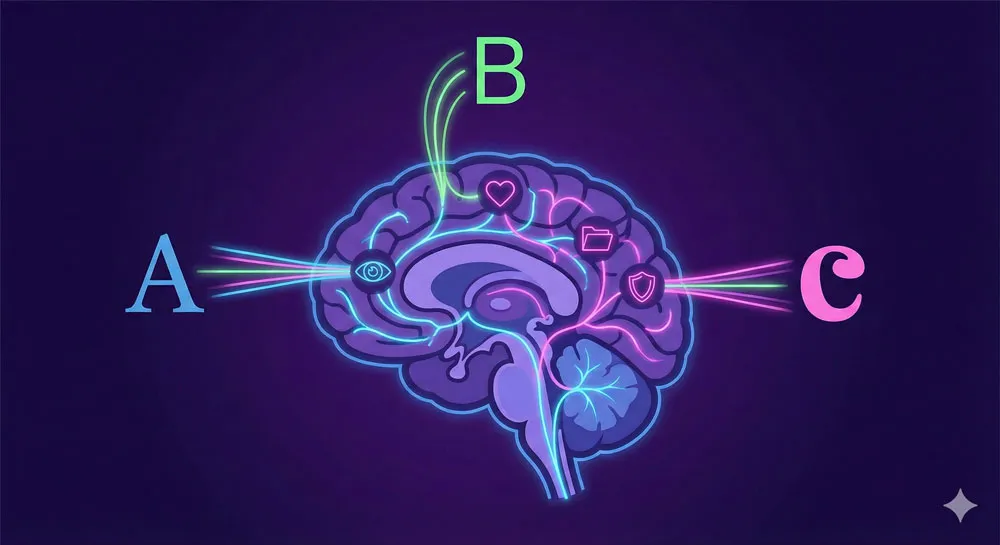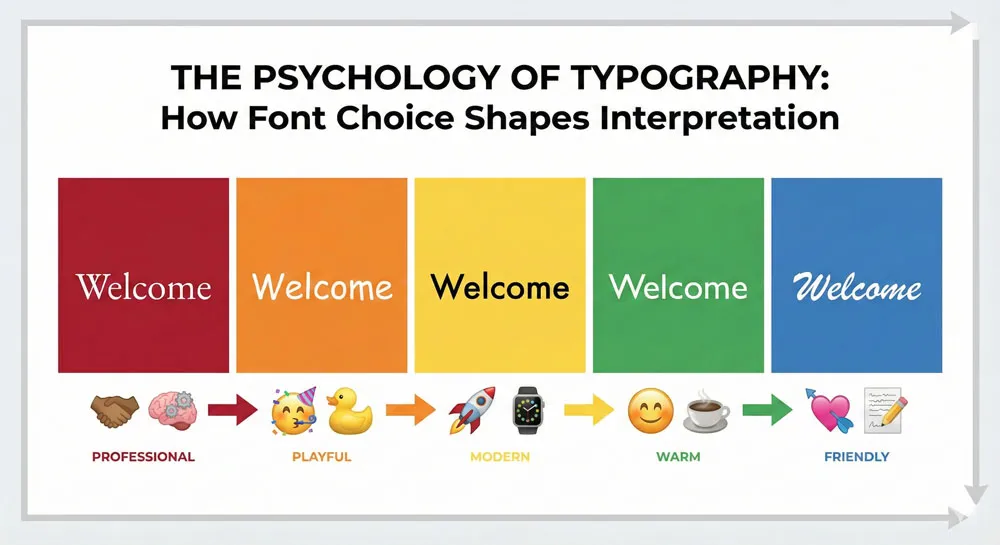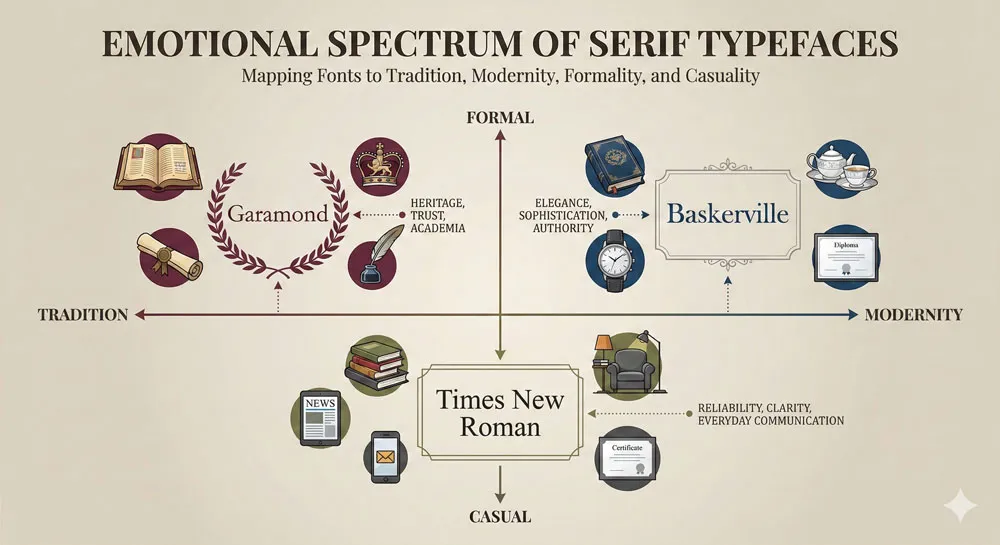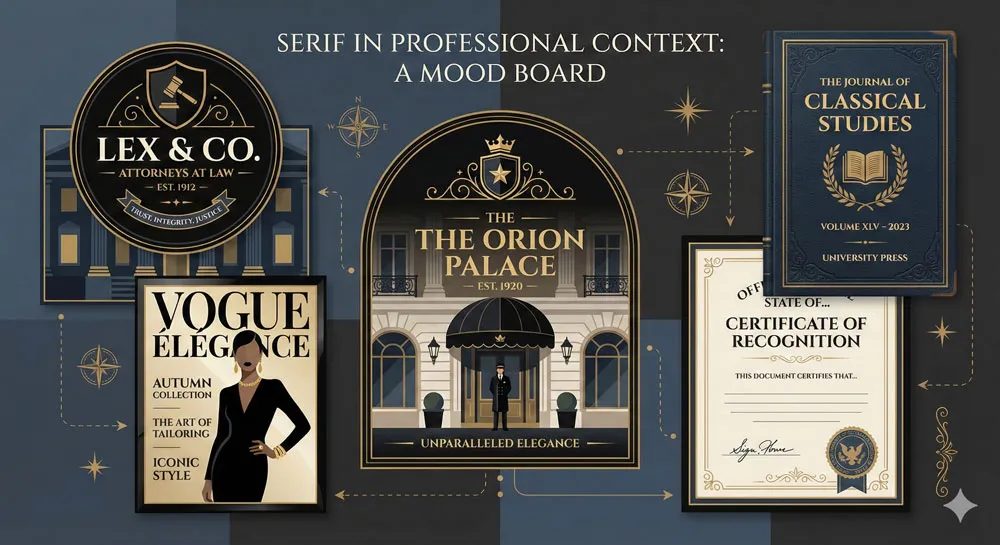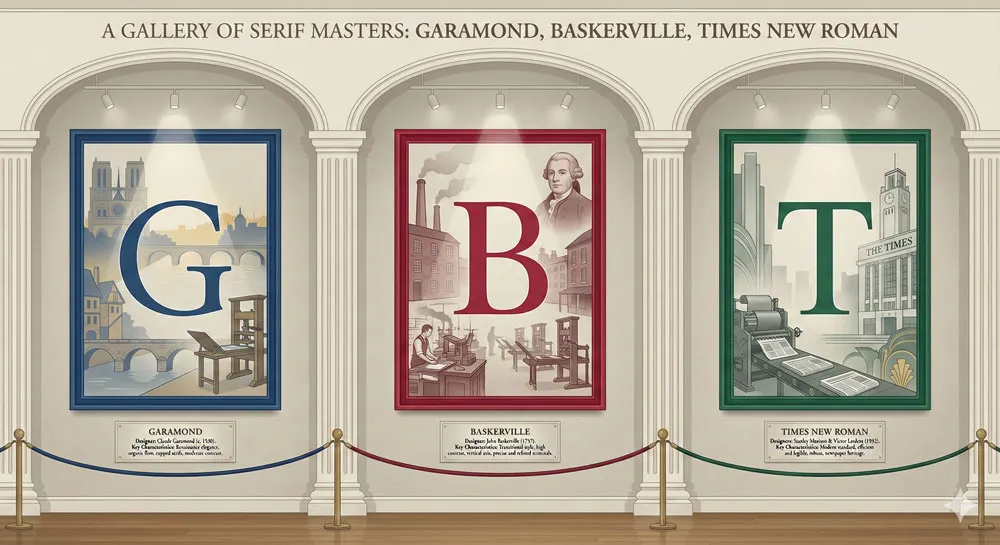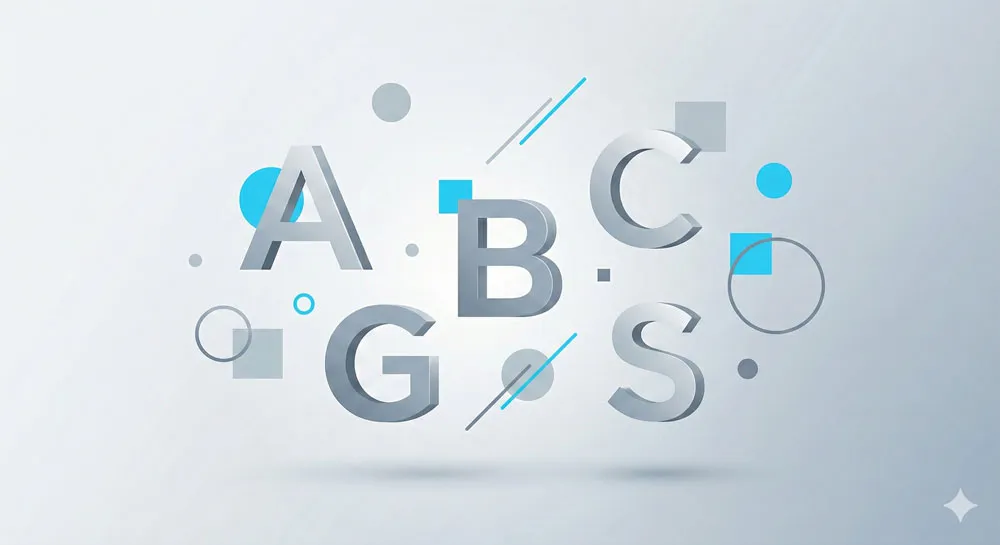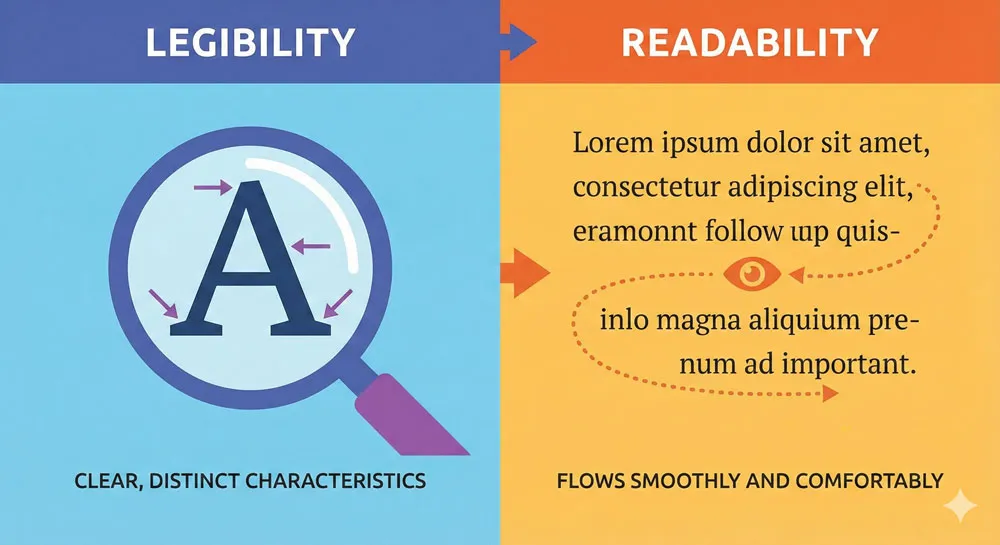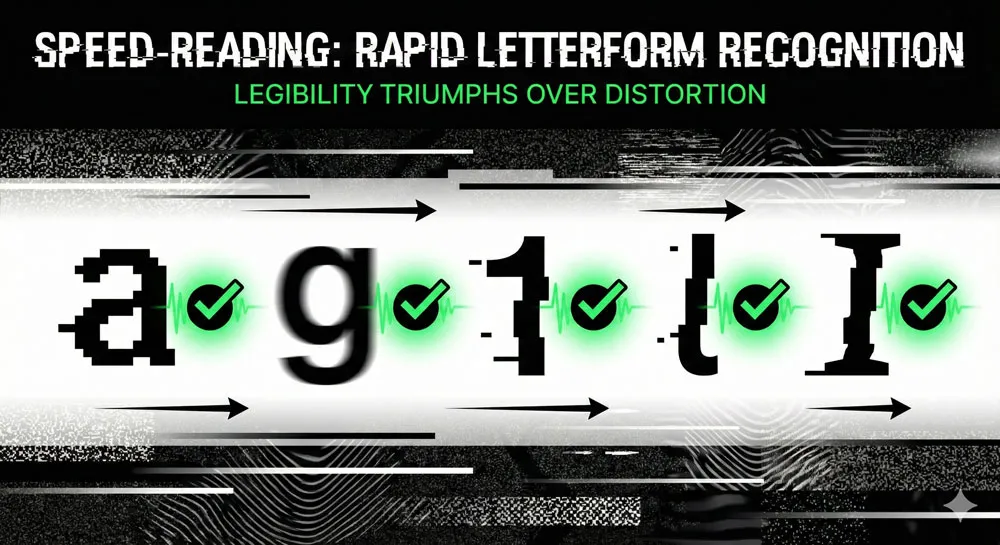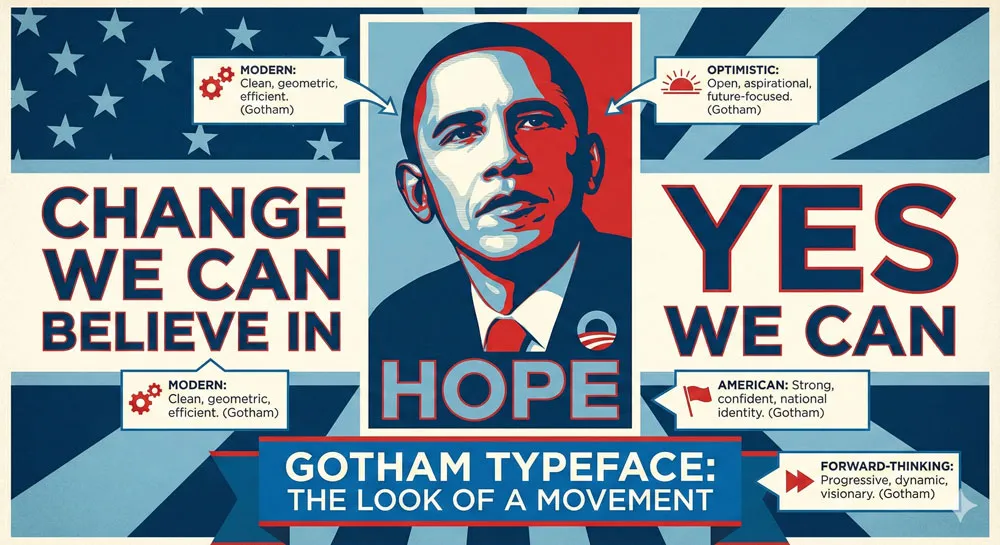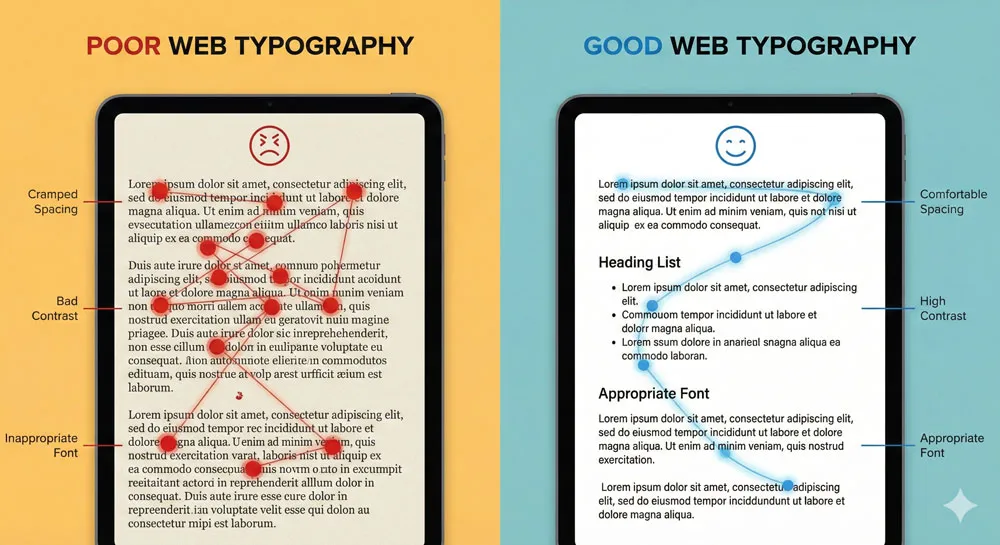
In June 2005, Steve Jobs stood before Stanford University students and described a moment that would change his life. A decade earlier, as a dropout at Reed College in Portland, he had wandered into a calligraphy class.
There, surrounded by beautiful hand-lettered posters and meticulously labeled drawers, Jobs learned about serifs, sans-serifs, and the subtle art of spacing between letters. He thought it would never matter. He was wrong.
Ten years later, when Jobs designed the Macintosh computer, he embedded that calligraphy lesson directly into its operating system. The Mac became the first personal computer with a real choice of typefaces.
Users could select from Chicago, Geneva, New York, Times New Roman, and Helveticaโeach evoking a different mood, a different purpose, a different feeling. Within a decade, the ability to choose a font had transformed from a privilege reserved for professional designers into something every computer user took for granted.
But what was happening in those split-second moments when a user clicked on a font menu? What made Geneva feel “corporate” and Los Angeles feel “playful”? Why did one typeface inspire trust while another seemed frivolous or threatening?
The answer lies in font psychologyโthe complex, often invisible relationship between typefaces and human emotion, behavior, and decision-making. When you choose a font, you are not simply selecting a collection of letterforms.
You are choosing a voice, a personality, a promise to your audience. You are communicating something beyond the literal meaning of your words.
This comprehensive guide explores how typography shapes the way we think, feel, and act. Whether you are a designer selecting typefaces for a brand identity, a content creator building a blog, a marketer crafting persuasive copy, or simply someone curious about the silent power of letters, understanding font psychology will change the way you see every word you read.
Understanding Font Psychology: The Basics
What Is Font Psychology?
Font psychology is the study of how typefaces influence human perception, emotion, and behavior. It operates at the intersection of design, neuroscience, marketing, and human behavior.
Every typeface carries cultural, historical, and emotional weight. A font is never “neutral”โeven the most minimal, geometric sans-serif communicates something to the viewer.
When you encounter a typeface, your brain does not simply recognize the shapes of letters and decode their meaning. Instead, you undergo a rapid, largely unconscious process of emotional and contextual evaluation.
You assess whether the font feels trustworthy, professional, playful, dangerous, intimate, or distant. Within milliseconds, before you have even finished reading the content, the typeface has already communicated a meta-message about that content.
This psychological response is rooted in several factors: personal experience, cultural conditioning, historical association, and design principles. A typeface that feels “old-fashioned” to a modern viewer does so because it resembles letterforms from a previous eraโnot because there is anything inherently old about straight lines and serifs.
A font that feels “friendly” often does so because it has rounded letterforms that psychologically remind us of softer, less threatening shapes.
How Fonts Communicate Without Words
Typography is a language unto itself. Just as the tone of voice in speech affects how we interpret spoken words, the typeface in which words are printed dramatically affects how we interpret written language. Consider the phrase “Welcome to our store.”
Print this in Garamond, a traditional serif font with historical roots, and it conveys a sense of established reputation and timeless quality. Print the same phrase in Comic Sans, a rounded sans-serif designed to feel friendly and approachable, and it conveys a casual, welcoming atmosphereโor, to many modern viewers, an unintentionally humorous tone.
Simon Garfield, in his exploration of typography culture, noted that typefaces carry implicit meanings that go far beyond their function of displaying text. A typeface tells a story about the organization, publication, or individual using it.
When Barack Obama’s 2008 presidential campaign selected the typeface Gotham, they were making a deliberate psychological choice. Gotham, a geometric sans-serif with American roots and contemporary appeal, communicates modernity, strength, and forward-thinking optimism. It is no accident that this typeface has become synonymous with political hope and change.
Fonts communicate through several distinct channels:
Visual Association:
Typefaces that resemble handwriting or calligraphy feel personal and informal. Typefaces with thick, heavy strokes feel powerful and commanding. Typefaces with thin, delicate strokes feel refined and elegant. These visual properties trigger immediate psychological responses based on evolutionary and cultural conditioning.
Historical Context:
A typeface that was popular in the 1970s carries psychological baggage from that era. Using Futura, Paul Renner’s geometric masterpiece from the 1920s, immediately evokes mid-century modernism and can feel either authentically retro or nostalgically dated depending on context.
Legibility and Effort:
Fonts that are easy to read feel comfortable and approachable. Fonts that require conscious effort to decipher feel exclusive, artistic, or deliberately challenging. The psychology of readability directly impacts how we emotionally engage with text.
Cultural Meaning:
In many cultures, certain typefaces have taken on symbolic meanings. Helvetica, the ubiquitous Swiss sans-serif, has become so associated with corporate professionalism and institutional authority that it feels “official” and “corporate” to viewers in Western contexts.
The Neuroscience Behind Font Perception
Recent neuroscience research has begun to map exactly how the brain processes typefaces. Studies using eye-tracking and fMRI imaging show that when we encounter unfamiliar or unusual typefaces, our brains activate regions associated with reward and cognitive processing. When we encounter familiar typefaces, our brains process them more efficiently, with less cognitive load.
This efficiency has psychological consequences. When a typeface is easy to read and familiar, we allocate our cognitive resources to understanding the content rather than decoding the letterforms.
This ease of processing creates a subtle psychological bias: we are more likely to agree with or trust messages presented in easily readable, familiar fonts than the same messages presented in difficult fonts.
Conversely, when a typeface is unfamiliar or difficult to read, our brains must work harder to process it. This increased cognitive load can create a subtle sense of unease or distrust. In some contexts, this effect can be deliberately exploitedโan artistic designer might choose a challenging typeface to communicate that the content is provocative or requires active engagement.
In other contexts, this effect is entirely unintended and counterproductive, as when Comic Sans appears in a medical brochure, creating cognitive dissonance between the serious content and the playful typeface.
The psychology of font perception is also influenced by emotional congruence. When a typeface’s perceived personality aligns with the message’s content, the communication feels coherent and trustworthy.
When there is a mismatchโplayful typography paired with serious content, or overly formal typography paired with casual, approachable messagingโviewers experience a subtle sense of wrongness. This is why marketing teams spend enormous resources ensuring that their brand typography aligns perfectly with their brand personality.
Related Topics:
- Helvetica Effect: One Font Conquered Global Design
- Comic Sans: True Story Behind the Worldโs Most Hated Font
- Gotham: Font That Won an Election And Changed Design Forever
The Big Divide: Serif Typefaces and Their Psychological Impact
What Are Serif Fonts?
Serif typefaces are characterized by small decorative lines, called serifs, that extend from the ends of letterforms. These decorative terminals can be subtle (as in Garamond or Times New Roman) or prominent and bracketed (as in Baskerville or Palatino).
The origin of serifs is a matter of historical debate, but most scholars agree they evolved from the way Roman stonemasons would finish the edges of letters carved into stone. Over centuries, serifs became an integral part of Western typography and took on psychological meanings far beyond their mechanical origins.
Serifs are most common in print typography, where they were traditionally believed to improve readability by helping the eye move horizontally across lines of text.
Whether or not this is technically true remains a subject of typographic debate, but the psychological perception is unambiguous: serif typefaces are strongly associated with authority, tradition, and formality.
The Emotions Serifs Evoke: Tradition, Trust, and Sophistication
When you see a serif typeface, your brain triggers psychological associations with several powerful concepts:
Tradition and Heritage:
Serif typefaces have been the dominant form of book typography for over 400 years. When you encounter serif fonts, you are subconsciously drawn to perceive the text as part of a long, established tradition.
This is why literary magazines, academic journals, and prestigious publications almost universally use serif typefaces. The serifs are saying, “This text comes from people with experience, with authority, with a track record.”
Formality and Professionalism:
Serif typefaces are strongly associated with formal communication. Law firms, government institutions, and financial services companies frequently use serif typefaces in their branding and communications. When you need to communicate that something is official, legal, or binding, a serif typeface is the default choice.
Trust and Reliability:
In one famous psychology experiment, researchers found that people perceived text set in certain serif typefaces (particularly Times New Roman) as more trustworthy and authoritative than the same text set in sans-serif typefaces.
This effect is particularly strong in contexts where authority is expectedโlegal documents, financial statements, academic papers. The serif typeface is not making the information any more accurate, but it is psychologically positioning the reader to be more receptive and trusting.
Sophistication and Elegance:
Serif typefaces with delicate proportions and high contrast between thick and thin strokes (such as Didot, Bodoni, or the elegant Mrs Eaves) trigger psychological associations with luxury, refinement, and sophistication.
Fashion brands, luxury hotels, and high-end restaurants frequently use these typefaces because they communicate exclusivity and taste.
Best Uses for Serif Fonts in Branding and Design
Serif typefaces are particularly effective in the following contexts:
Book and magazine publishing:
Long-form reading benefits psychologically from serif typefaces, partly due to tradition and partly due to the genuine readability advantages.
Luxury brands and high-end products:
When you want to communicate sophistication and exclusivity, serif typefaces are the default choice.
Legal, financial, and governmental communication:
These institutions rely on serif typefaces to communicate authority and formality.
Academic and editorial contexts:
Universities, research institutions, and publications use serif typefaces to establish credibility and connection to tradition.
Premium or heritage brands:
Companies with long histories often employ serif typefaces to emphasize their track record and reliability.
Examples: Garamond, Times New Roman, Baskerville
- Garamond is perhaps the quintessential serif typeface for body text. Originally designed by Claude Garamond in 16th-century Paris, it feels both classical and readable. Garamond communicates elegance without ostentation. It was used for the American Declaration of Independence and remains a favorite for literary publications.
- Times New Roman is the default serif font for academic papers and professional correspondence. Designed by Stanley Morison in 1932 for The Times newspaper, it is perhaps the most ubiquitous serif font in the world.
Its overuse has made it feel somewhat generic, yet it remains the default choice when formality and tradition are required. Simon Garfield notes that Times New Roman’s very ubiquity has rendered it simultaneously authoritative and boringโa font so familiar that we often fail to consciously notice it.
- Baskerville represents serif typography at its most refined. Designed by John Baskerville in 18th-century Birmingham, Baskerville features delicate proportions and high contrast between thick and thin strokes.
It is transitional between old-style serifs and modern serifs, and it triggers psychological associations with both tradition and contemporary sophistication. Baskerville is frequently used by luxury brands and premium publications because it communicates both heritage and refinement.
Related Topics:
- Futura: The Geometric Vision of Paul Renner
- Gill Sans: Eric Gillโs Humanist Masterpiece
- Baskerville: Elegant Serif That Shaped Print Typography
The Modern Choice: Sans-Serif Typefaces and Clean Aesthetics
Understanding Sans-Serif Fonts
Sans-serif typefaces are characterized by the absence of serifsโhence the French prefix “sans,” meaning “without.” Sans-serif letterforms consist of simple geometric shapes: straight lines and curves without decorative terminals.
While sans-serif typefaces have existed since the early 1800s, they did not become widespread until the 20th century, when modernist design movements embraced their clean, functional aesthetic.
The shift from serif to sans-serif was not merely stylistic. It represented a fundamental change in how Western culture thought about design and communication.
Serifs were seen as decorative remnants from an earlier era; sans-serifs were modern, rational, and forward-thinking.
Today, sans-serif typefaces dominate contemporary design, particularly in digital contexts where their clean, minimal appearance is easier to render on screens.
The Psychology of Minimalism: Why Brands Choose Sans-Serifs
Sans-serif typefaces trigger distinctly different psychological associations than their serif counterparts:
Modernity and Progress:
A sans-serif font immediately communicates that a brand or organization is contemporary, forward-thinking, and progressive. This is why tech companies almost universally use sans-serif typefaces. Apple, Microsoft, Google, and virtually every other technology company relies on sans-serif typography to communicate innovation and cutting-edge thinking.
Cleanliness and Clarity:
The geometric simplicity of sans-serif typefaces is psychologically associated with clarity, transparency, and straightforwardness. When you want to communicate that information is accessible and easy to understand, a sans-serif typeface is an excellent choice.
Accessibility and Inclusivity:
Modern sans-serif typefaces, particularly those designed for screen use, are often perceived as more accessible and democratic than serif typefaces. They feel less “elite” or “exclusive.”
This psychological effect makes sans-serifs popular for institutional communications, public health messages, and any context where you want to reach a broad audience.
Efficiency and Functionality:
Sans-serifs trigger psychological associations with efficiency, functionality, and stripped-down design. They communicate “this is the essential information, no fluff.” This is why subway systems, airport signage, and instructional materials universally employ sans-serif typefaces.
Neutrality and Corporate Authority:
While serif typefaces communicate tradition and cultural authority, sans-serif typefaces communicate institutional authority and contemporary professionalism.
Helvetica, the quintessential corporate sans-serif, became so associated with institutional power that it essentially became invisibleโso ubiquitous that viewers stop consciously noticing it and simply absorb its message of authority and formality.
Humanist vs. Geometric Sans-Serifs
Not all sans-serif typefaces are psychologically identical. There are two major categories, each with distinct psychological properties:
- Geometric Sans-Serifs are based on pure geometric formsโcircles, squares, and simple mathematical relationships. Futura, the archetypal geometric sans-serif, is composed of circles and straight lines.
Gotham is a more contemporary geometric sans-serif with slightly less mathematical purity. Geometric sans-serifs trigger psychological associations with modernity, optimism, and forward-thinking rationality. They feel aspirational and futuristic.
- Humanist Sans-Serifs retain subtle characteristics of handwriting and calligraphy, despite their lack of serifs. Gill Sans, designed by Eric Gill in the 1920s, maintains a human warmth despite its clean, modern appearance.
Verdana, designed by Matthew Carter for screen use, incorporates humanist principles by varying the width of letterforms slightly to improve readability. Humanist sans-serifs trigger psychological associations with approachability, warmth, and human-centered design. They feel modern but not cold; efficient but not robotic.
The distinction is subtle but psychologically significant. A geometric sans-serif like Futura communicates “we are efficient, rational, and forward-thinking.” A humanist sans-serif like Gill Sans communicates “we are modern and efficient, but we also care about human experience and warmth.”
Case Study: Helvetica’s Rise to Dominance
Helvetica is perhaps the most important typeface in modern history, and understanding its psychological power provides insight into the broader psychology of typography.
Designed in Switzerland in 1957 by Max Miedinger and Eduard Hoffmann, Helvetica emerged at a moment when the modernist design movement was at its peak. The typeface represented the perfect marriage of Swiss rationalism, geometric clarity, and functional efficiency.
Helvetica was immediately adopted by major corporations, government institutions, and public agencies. Within a decade, it became the de facto typeface for institutional communication.
The New York subway system, American Airlines, and countless corporate logos adopted Helvetica. By the 1980s, Helvetica was so ubiquitous that it had essentially disappeared into the background of contemporary visual culture.
The psychology of Helvetica’s dominance is revealing. The typeface communicates authority, neutrality, and institutional power so effectively that viewers stop consciously noticing it.
This is both Helvetica’s greatest strength and its primary weakness. As a corporate branding tool, Helvetica’s invisibility is precisely what makes it effectiveโthe viewer’s attention remains on the message rather than on the typeface itself.
But this invisibility also makes Helvetica feel generic and impersonal when viewed from a contemporary perspective.
In 2007, filmmaker Gary Hustwit released a documentary called “Helvetica” that examined the typeface’s cultural impact. The film featured interviews with designers, architects, and cultural critics who debated whether Helvetica represented the best of modernist design or had become a symbol of corporate conformity and the erasure of individual expression.
The film is instructive because it reveals that font psychology is not merely individualโit is deeply cultural and contested. Helvetica means different things to different people depending on their relationship to modernism, corporate culture, and design history.
Related Topics:
- Bodoni Font: Serif That Defined Luxury Typography
- Garamond: Timeless Serif That Defined Classical Typography
- The Worst Fonts in the World: A Typographic Hall of Shame
Legibility vs. Readability: The Psychology of Comfort and Function
Legibility: Recognition at a Glance
Legibility refers to how easily individual letterforms can be distinguished from one another. A legible typeface has clear, distinct letterforms with sufficient differentiation between similar letters.
For example, the lowercase “l” (letter ell), the number “1” (one), and the uppercase “I” (eye) should be visually distinct in a legible typeface. In Comic Sans, they are often confused, which is one reason typographic professionals consider it illegible in certain contexts.
The psychology of legibility is primarily about efficiency and recognition. When letterforms are legible, the viewer’s brain can rapidly process individual characters without conscious effort. This creates a psychological sense of ease and clarity. The viewer does not have to “work” to understand what they are reading.
Conversely, when a typeface has poor legibility, the viewer’s brain must expend additional cognitive resources to distinguish between similar letterforms. This additional cognitive load creates a subtle psychological sense of frustration and discomfort. Over time, reading an illegible typeface is cognitively exhausting and creates negative associations with the content.
Readability: The Comfort of Extended Text
Readability refers to how comfortable a typeface is for reading longer passages of text. While legibility is about individual character recognition, readability encompasses factors like line length, leading (vertical spacing between lines), kerning (horizontal spacing between letter pairs), and the overall aesthetic coherence of the typeface.
A readable typeface might have perfect legibility but still be uncomfortable to read for extended periods if factors like leading or line length are suboptimal. Conversely, some typefaces with slightly lower legibility remain highly readable because their overall aesthetic creates a comfortable, flowing reading experience.
The psychology of readability is primarily about comfort and sustained engagement. When a typeface is readable, the viewer can immerse themselves in the content without distraction. They experience a psychological state similar to flowโfocused attention on meaning rather than form. This state of flow creates positive psychological associations with the content.
How Psychology Shapes These Distinctions
Research in cognitive psychology reveals that the distinction between legibility and readability maps onto the distinction between shallow and deep processing. Shallow processing occurs when we recognize individual characters with minimal cognitive effort. Deep processing occurs when we understand meaning and context, often through sustained, comfortable reading.
When a typeface is legible, viewers are more likely to engage in deep processing because they do not have to expend cognitive resources on character recognition. When a typeface has poor legibility, viewers’ cognitive resources are partially consumed by the act of decoding letterforms, leaving fewer resources for deep processing of meaning.
This has profound implications for communication. If you want your message to be understood deeply and remembered, choose a legible typeface that enables deep processing.
If you want your message to be noticed and to stand out, you might deliberately choose a less legible typeface to capture attentionโbut be aware that you will sacrifice deep processing and message comprehension.
Kerning, Leading, and Spacing: The Hidden Psychology
Three technical aspects of typeface design have outsized psychological impact: kerning, leading, and word spacing.
- Kerning refers to the adjustment of horizontal space between specific letter pairs. For example, the letter combination “AV” looks visually unbalanced without kerning because the A and V create a large gap.
Good kerning adjusts this space to create visual balance. Poor kerning creates a visual sense of disorder and carelessness. This is why Comic Sans, which lacks sophisticated kerning, often looks amateurish even in contexts where the basic letterforms are appropriate.
The psychology of kerning is subtle but powerful. Viewers do not consciously notice good kerning, but they immediately notice bad kerning. Poor kerning creates a subliminal sense that the communication is unprofessional or careless, which creates negative associations with the content.
- Leading (pronounced “leading,” from the lead strips historically used to separate lines of type) refers to the vertical space between lines of text. Tight leading makes text feel cramped and difficult to read.
Generous leading makes text feel airy and comfortable. The psychology of leading is about rhythm and breathing. Text with generous leading feels like it is giving you space to think; text with tight leading feels claustrophobic.
- Word spacing refers to the horizontal space between words. Typefaces with poor word spacing create a visual sense of disorganization. The psychology of word spacing is partly about legibilityโadequate spacing makes individual words easier to distinguishโand partly about aesthetics. Well-spaced typography feels carefully designed; poorly spaced typography feels careless.
The psychological impact of these technical aspects of typography is often unconscious. Viewers do not typically think, “Ah, this typeface has excellent kerning,” but they do experience a subtle sense that the communication is professional and well-executed. This subliminal impression influences their trust in and receptivity to the message.
Related Topics:
- Gill Sans and Tube: How Johnston and Gill Defined London
- Baskerville and Eaves: A Tale of Perfection, Passion and Revival
- Futura vs. The World: The Geometric Vision of Paul Renner
Typeface Personality: The Six Core Emotional Dimensions
One of the most useful frameworks in font psychology is the concept of typeface personality. Just as individual human personalities can be described along various emotional and behavioral dimensions, typefaces can be positioned along personality axes.
Understanding these dimensions helps designers make intentional choices about which typefaces best match their communication goals.
Formal vs. Casual
The formal-casual axis describes how professional and structured a typeface appears. Formal typefaces communicate authority, professionalism, and institutional power.
These include serif typefaces like Garamond, Baskerville, and Times New Roman, as well as geometric sans-serifs like Futura.
Casual typefaces feel approachable, friendly, and informal. These include humanist sans-serifs like Gill Sans, playful typefaces like Comic Sans, and script fonts that resemble handwriting.
The psychology of this axis relates to social distance and formality. Formal typefaces create psychological distance between the communicator and the audience, which is appropriate for institutional or official communication.
Casual typefaces reduce psychological distance, which is appropriate for personal communication or community-oriented messaging.
Friendly vs. Serious
The friendly-serious axis describes the emotional warmth a typeface conveys. Friendly typefaces have rounded letterforms, open counters (the internal white space within letters), and often incorporate slight irregularities that suggest human intervention.
Serious typefaces have more geometric precision and often incorporate high contrast between thick and thin strokes, which creates a sense of visual intensity.
The psychology of this axis relates to emotional tone and approachability. Friendly typefaces trigger psychological associations with warmth, approachability, and care. Serious typefaces trigger associations with gravitas, importance, and demands for attention.
Strong vs. Delicate
The strong-delicate axis describes the visual weight and intensity of a typeface. Strong typefaces have thick strokes, bold letterforms, and substantial visual presence.
Delicate typefaces have thin strokes, subtle letterforms, and refined visual presence. Futura Bold is strong; Bodoni Thin is delicate.
The psychology of this axis relates to power and refinement. Strong typefaces communicate power, confidence, and importance. Delicate typefaces communicate refinement, subtlety, and sophistication.
A luxury fashion brand might choose a delicate typeface to communicate refined taste; a sports brand might choose a strong typeface to communicate power and athleticism.
Modern vs. Classical
The modern-classical axis describes how contemporary or historical a typeface feels. Modern typefaces incorporate contemporary design principles and often feature geometric clarity and minimal ornamentation.
Classical typefaces incorporate historical design principles and often feature serifs, bracketed letterforms, or other characteristics associated with earlier eras.
The psychology of this axis relates to progression and tradition. Modern typefaces communicate innovation, progress, and forward-thinking. Classical typefaces communicate heritage, tradition, and connection to the past.
Technical vs. Humanistic
The technical-humanistic axis describes whether a typeface feels designed by machines or by humans. Technical typefaces feature geometric precision, consistent stroke weights, and mathematical relationships between letterforms.
Humanistic typefaces incorporate irregularities, variable stroke weights, and characteristics that suggest human intervention.
The psychology of this axis relates to warmth and efficiency. Technical typefaces communicate efficiency, rationality, and precision. Humanistic typefaces communicate warmth, empathy, and human-centered design.
Related Topics:
- Legibility vs. Readability: What Every Designer Needs to Know
- Secret Life of Symbols: History of Ampersand and Interrobang
- Helvetica โ Swiss Modernismโs Ubiquity Crisis
Font Psychology in Branding and Marketing
How Fortune 500 Companies Use Typography
The world’s largest companies invest enormous resources in typography because they understand, often intuitively, the psychological power of font choice. These investments reveal important truths about font psychology.
Consider the evolution of technology company branding. In the 1990s, companies like Microsoft and Apple both relied on sans-serif typefaces, but with subtle differences in personality. Apple’s branding emphasized humanist sans-serifs that communicated innovation tempered with human-centered design.
Microsoft’s branding emphasized more geometric sans-serifs that communicated cutting-edge technology and corporate efficiency. Both companies understood that their typeface choices would psychologically position them in specific ways relative to competitors.
Luxury brands reveal another pattern. Fashion houses like Louis Vuitton, Chanel, and Gucci typically employ elegant serif typefaces or custom typefaces with refined proportions. These typeface choices communicate exclusivity and refined taste. The psychological message is clear: we are sophisticated, we have heritage, and our products are for people who understand quality.
Financial institutions like JPMorgan Chase, Goldman Sachs, and the New York Stock Exchange all employ serif typefaces. The psychological message is equally clear: we are established, authoritative, and trustworthy.
Your money is in capable hands. The serif typeface is not making the institution any more trustworthy in reality, but it is psychologically positioning the institution to appear more trustworthy.
Sports brands reveal yet another pattern. Nike, Adidas, and Puma employ strong, geometric sans-serifs that communicate power, athleticism, and forward-thinking innovation. The psychological message: we are dynamic, we are winners, and you can achieve athletic excellence through our products.
The Role of Font Choice in Brand Identity
Font choice is often one of the most neglected elements of brand identity, yet it is also one of the most psychologically powerful. A brand’s typeface choice communicates core values and personality more efficiently than any other design element except color.
This is why brand guidelines are so specific about typeface usage. When a company specifies that the brand typeface is “Helvetica for headlines, Georgia for body text,” they are making a psychological choice about how the brand will be perceived.
They are saying, “We want our headlines to communicate institutional authority and clarity (Helvetica), but we want our body text to feel readable and traditional (Georgia).”
Changing a brand’s typeface is a major undertaking precisely because it changes how the brand is psychologically perceived. When companies like Gap or Firefox redesign their logos and typeface treatments, the change in font psychology often generates significant public reactionโsometimes positive, sometimes negative.
The psychology of font choice is so powerful that changing it can fundamentally alter how people perceive the brand.
Typography and Consumer Trust
Research in marketing psychology has established a clear relationship between typography and consumer trust. In general, consumers trust brands that use typefaces they are familiar with. This is why most established brands do not take radical risks with typography.
They use typefaces like Helvetica, Garamond, or other classic typefaces because these typefaces are familiar and therefore trustworthy.
However, there is a paradox here. Typefaces that are too familiar can feel generic and uninspiring. A brand that uses Helvetica communicates authority and trust, but it also risks appearing unimaginative or corporate in a negative sense.
This is why many contemporary brands attempt to strike a balanceโusing familiar typeface families or familiar typeface characteristics, but with subtle customization or unusual pairing to communicate both trust and distinction.
The psychology of consumer trust also relates to congruence between typeface and brand values. If a brand communicates that it values innovation, using an excessively traditional serif typeface creates cognitive dissonance that reduces trust.
Conversely, if a brand communicates institutional authority, using a playful or experimental typeface creates similar cognitive dissonance.
The Gotham Effect: Politics and Persuasion
The most famous contemporary example of font psychology in persuasion is Gotham’s role in Barack Obama’s 2008 presidential campaign. Designed by Tobias Frere-Jones and published by the Hoefler & Frere-Jones foundry, Gotham is a geometric sans-serif that combines American roots with contemporary design sensibility.
The Obama campaign chose Gotham for its psychological properties. The typeface communicates optimism, forward-thinking, and American strength. It feels contemporary without being radical; authoritative without being hierarchical; inspirational without being hyperbolic. The choice of Gotham was so successful that it became permanently associated with the Obama brand and the “hope and change” messaging of the 2008 campaign.
Since then, Gotham has been adopted by numerous political campaigns and brands seeking to communicate similar qualities. The typeface has become associated with political optimism and forward-thinking progressivismโassociations that emerged from its successful deployment in political persuasion.
The Gotham case study reveals several important principles about font psychology in persuasion:
- Congruence: The typeface aligned perfectly with the campaign’s messaging and values.
- Distinctiveness: While Gotham is a modern typeface, it was not so radical as to alienate mainstream voters.
- Psychological Associations: The typeface triggered subconscious associations with American strength, innovation, and progress.
- Consistency: The typeface was used consistently across all campaign materials, building cumulative psychological impact.
Related Topics:
- Comic Sans โ Accessibility & Gatekeeping Critique
- Gotham โ Political Design & Elections Power
- Futura โ Geometric Modernism Revolution
Web Typography and User Experience Psychology
Screen Fonts vs. Print Fonts
The psychology of typography changes fundamentally when typefaces move from print to screen. Print typography evolved over centuries to optimize for the viewing conditions of printed books and magazinesโsteady lighting, physical proximity, and stable positioning.
Screen typography must account for very different viewing conditions: variable lighting, variable distance, and dynamic content that changes as users scroll.
In the early days of digital typography, designers simply transferred print typefaces to screens with disappointing results. Typefaces like Times New Roman, optimized for printed books, looked jagged and difficult to read on screen due to the limited resolution of digital displays.
This led to the development of screen-optimized typefaces like Verdana and Georgia, specifically designed by Matthew Carter to remain legible and readable at small sizes on low-resolution screens.
The psychology of screen typography emphasizes efficiency and speed. Print reading is typically a sustained activityโyou read a book for hours. Screen reading is typically fragmentedโyou scan, you skim, you jump between pages.
Screen typefaces therefore prioritize legibility and rapid character recognition over the aesthetic qualities that make print typography beautiful.
Readability on Small Screens
The rise of mobile devices has fundamentally changed typography psychology. Text that is comfortable to read on a large desktop monitor becomes cramped and difficult on a 5-inch smartphone screen.
This shift has driven the adoption of sans-serif typefaces for digital design and the development of variable fonts that automatically adjust their proportions based on viewing conditions.
The psychology of small-screen typography is about recognition and comfort under constraint. When text is small, legibility becomes paramount. Serif typefaces, which are beautiful in print and comfortable in large sizes on desktop screens, often become difficult to read at small sizes on mobile devices because their delicate serifs disappear or become pixelated.
This is why virtually all contemporary digital design guidelines recommend sans-serif typefaces for mobile screens. Sans-serif typefaces maintain legibility and readability at small sizes and on low-resolution displays.
They are the best choice not because they are aesthetically superior, but because they are psychologically optimized for the constraints of small-screen viewing.
Font Size, Color, and Cognitive Load
The psychology of web typography also involves the interaction between typeface, font size, and color. A typeface that is perfectly readable in 12pt black text on white background might become difficult to read when sized at 8pt or when displayed in light gray on a light background.
Font size has psychological implications beyond mere readability. Large text communicates importance and demands attention. Small text communicates subordination and secondary importance.
This is why calls-to-action are typically set in larger font sizes than supporting text. The larger size communicates that this is the primary message; smaller supporting text communicates that this is secondary information.
Color also interacts psychologically with typeface choice. High-contrast color combinations (black text on white background, white text on dark background) are easier to read but can feel harsh and clinical.
Lower-contrast combinations (dark gray on light gray, light text on medium backgrounds) are slightly more difficult to read but often feel more aesthetically refined and easier on the eyes. The psychological trade-off is between legibility and comfort.
The Psychology of Scrolling and Line Length
Contemporary web design has revealed important psychological truths about line length and reading behavior. The optimal line length for reading sustained text is approximately 50-75 characters per line.
When lines are longer, the reader’s eyes have difficulty tracking from the end of one line to the beginning of the next. When lines are shorter, the reader experiences too many line breaks, which disrupts the reading flow.
This is not merely a technical constraint; it is a psychological one. When line length is optimal, readers enter a flow state and comprehension improves. When line length is suboptimal, readers experience cognitive strain and their attention wavers.
The rise of responsive web design has brought renewed attention to line length psychology. Designers must ensure that text remains within optimal line-length ranges across all device sizes.
This often requires adjusting font size, margins, and column width based on the viewing device. The goal is to maintain the psychological conditions for comfortable, uninterrupted reading.
Related Topics:
- Gill Sans โ Humanist Alternative Modernism
- Baskerville โ Print Excellence & Love Story
- Bodoni โ Theatrical Prestige Aesthetics
The Psychology of “Bad” Fonts: Comic Sans and Beyond
Why We Love to Hate Comic Sans
No contemporary font has become more culturally iconicโor more culturally despisedโthan Comic Sans. Designed in 1994 by Vincent Connare for Microsoft’s Bob software project, Comic Sans was intended to be a friendly, approachable typeface for non-technical users. The design was successfulโit achieved the goal of feeling warm, informal, and accessible.
Yet Comic Sans became the subject of a massive internet hate campaign. Websites dedicated to banning Comic Sans appeared. Design professionals expressed public disgust at its proliferation. Comic Sans became a symbol of poor typography, amateur design, and cultural bad taste.
The psychology of Comic Sans hatred reveals important truths about font psychology in general. Comic Sans is not inherently “bad” in a technical sense. It is legible, it is functional, and it is particularly well-regarded by specialists who work with dyslexic readers because its letterforms are distinct and unambiguous. The hatred of Comic Sans is not about technical shortcomings; it is about contextual inappropriateness and cultural snobbery.
Comic Sans triggers psychological revulsion when used in contexts where it seems inappropriate. A doctor’s office using Comic Sans in a medical brochure triggers cognitive dissonance: the serious, clinical content is undermined by a typeface designed to communicate friendliness and informality.
A funeral home using Comic Sans on a gravestone triggers similar cognitive dissonance: the gravity of the occasion is undermined by a typeface designed to feel playful.
However, Comic Sans is entirely appropriate in certain contexts. When used in children’s books, on candy packaging, or in informal, playful communications, Comic Sans is perfect. It communicates exactly what these contexts call for: friendliness, warmth, and informality.
The psychology of Comic Sans hatred also involves cultural and class dimensions. Design professionals developed a shared cultural narrative that Comic Sans is “bad,” and this narrative became self-reinforcing.
Once a font becomes culturally coded as “bad,” people are primed to dislike it and to interpret its use as evidence of poor design judgment, regardless of context. This is a powerful example of how font psychology is not merely individualโit is cultural and socially constructed.
Context Matters: When Bad Fonts Become Appropriate
The Comic Sans example illuminates a broader principle: there are no universally “bad” fonts, only contextually inappropriate fonts. Vincent Connare himself has articulated this perspective with characteristic humor:
“If you love Comic Sans, you don’t know much about typography. If you hate it, you really don’t know much about typography either, and you should get another hobby.”
A typeface that is entirely inappropriate for a luxury brand is perfectly appropriate for a children’s restaurant. A typeface that is too playful for a legal document might be exactly right for a wedding invitation.
The psychology of “bad” fonts is really the psychology of contextual mismatchโthe typeface does not align with the psychological and cultural meaning of the content.
This principle has important implications for designers. Rather than thinking of fonts as inherently “good” or “bad,” it is more useful to think of fonts as contextually appropriate or inappropriate.
The right question is not “Is this a good font?” but rather “Is this font appropriate for this specific context, audience, and communication goal?”
Other Controversial Typefaces and Their Psychology
While Comic Sans is the most famous example of a controversial typeface, other fonts have generated similar cultural reactions:
Papyrus is frequently derided by designers for being overused and inappropriate in most professional contexts. Yet it is entirely appropriate for certain contextsโtropical restaurants, vacation resorts, casual outdoor contexts. The cultural hatred of Papyrus is similar to the hatred of Comic Sans: once the font became coded as “bad,” people began interpreting all instances of its use as evidence of poor design judgment.
Souvenir was wildly popular in the 1970s but is now viewed as dated and retro. Interestingly, contemporary designers sometimes deliberately use Souvenir to communicate exactly that sense of 1970s nostalgia. The same typeface that was considered “bad” becomes acceptable when its dated quality is intentional and contextually appropriate.
Impact is often used inappropriately in design contexts but is entirely appropriate for its original purposeโcreating high-visibility signage and headlines where maximum legibility is required. The psychology of Impact is that it communicates urgency and demands immediate attention.
Lessons from Typography Fails
The cultural narratives around “bad” fonts offer important lessons for designers:
- Context is everything: The appropriateness of a typeface depends entirely on the context, audience, and communication goal. No font is universally bad or good.
- Cultural narratives shape perception: Once a font becomes culturally coded as “bad,” people interpret all instances of its use negatively, regardless of whether the use is contextually appropriate.
- Class and snobbery are involved: Some of the hatred directed at fonts like Comic Sans involves aesthetic snobbery and professional gatekeeping. Design professionals’ shared narratives about “bad” fonts are not merely technical judgments; they are cultural judgments that often involve class dimensions.
- Emotional associations matter: Fonts trigger emotional associations based on past experiences, cultural conditioning, and personal taste. These emotional associations are powerful and often operate beneath conscious awareness.
- Intention matters: A deliberately ironic or nostalgic use of a “bad” font is experienced very differently from an unintentional, contextually inappropriate use of the same font.
Related Topics:
- Garamond โ Classical Foundation Principles
- Worst Fonts โ Criticism & Gatekeeping Analysis
- Gill Sans & The Tube โ Urban Identity Infrastructure
Cultural and Historical Context in Typography
How History Shapes Our Font Preferences
Every typeface carries historical weight. A typeface that feels “old-fashioned” to a contemporary viewer does so not because there is anything inherently old about letterforms, but because that typeface was designed in an earlier era and carries visual characteristics that remind us of that era.
This historical awareness shapes our font preferences in profound ways. Typefaces from the 1970s carry psychological associations with that era. When designers use Futura (originally designed in 1927 but popularized again in mid-century modernism), they are drawing on associations with 1950s-60s optimism and technological progress. When designers use Souvenir (originally designed in 1914 but popularized in the 1970s), they are drawing on associations with 1970s retro aesthetic.
The psychology of historical association is powerful because it operates largely outside conscious awareness. A viewer who did not experience the 1970s might still feel a psychological sense of “retro” when seeing Souvenir because they have absorbed cultural associations with that typeface through media, design, and cultural narratives.
Typography Across Cultures
Font psychology also varies significantly across cultures. A typeface that communicates authority and formality in Western contexts might communicate different qualities in non-Western contexts.
This is because cultural associations with letterforms, serifs, and geometric shapes vary based on cultural history and aesthetic traditions.
For example, typefaces with very thick, heavy strokes might communicate power and authority in Western design traditions, but they might trigger different associations in cultures with different calligraphic traditions.
Similarly, serif typefaces carry different psychological weight depending on a culture’s history with written language and printing traditions.
This creates challenges and opportunities for global brands. When a company operates across multiple cultures, it must decide whether to use the same typeface globally (which makes the brand consistent but might trigger culturally specific misunderstandings) or to use culturally adapted typefaces (which might better fit local contexts but might make the brand feel less consistent globally).
The Psychology of Novelty vs. Familiarity
There is a fundamental tension in font psychology between novelty and familiarity. Familiar typefaces are psychologically comfortable and trustworthyโthey reduce cognitive load and enable deep processing of content. Novel typefaces capture attention and create a sense of distinctiveness and creativity.
Most successful brands navigate this tension by using familiar typeface families with subtle customization. For example, a brand might use Helvetica (a familiar, comfortable typeface) but modify the letterforms slightly to create custom details that make the font distinctive. This approach preserves the psychological benefits of familiarity while adding uniqueness.
The psychology of novelty vs. familiarity also relates to the life cycle of typefaces. When a typeface is first designed, it might feel radically novel and distinctive. As it becomes widely adopted and familiar, it begins to feel normal and eventually dated.
Contemporary designers often resist using typefaces that have become too familiar because they feel generic. Yet these “generic” typefaces might be precisely the right choice for contexts where trust and clarity matter more than distinctiveness.
Why Certain Fonts Feel “Expensive” or “Cheap”
One of the most interesting phenomena in font psychology is the perception that certain fonts communicate luxury and sophistication while others communicate cheapness or lack of taste. This perception is not based on any technical property of the fonts themselves; rather, it emerges from cultural associations and psychological congruence.
Fonts feel “expensive” when they are associated with luxury brands, premium publications, and high-end design contexts. Thin, elegant serif typefaces like Didot or Bodoni feel expensive because they are frequently used in luxury fashion branding. Fonts feel “cheap” when they are associated with discount retailers, low-end mass production, or amateur design.
Importantly, these associations are not fixed. A font’s perception of luxury or cheapness can change over time as its cultural associations change. Comic Sans was considered sophisticated when it was designed and in its early applications. It only became coded as “cheap” or “bad” after the internet hate campaign.
Related Topics:
- Baskerville & Mrs. Eaves โ Love, Partnership & Revival
- Futura & Paul Renner โ Geometric Vision & Revolution
- Legibility vs. Readability โ Typography Fundamentals
Practical Applications: Choosing the Right Font for Your Project
Defining Your Brand Personality
The first step in making strategic font choices is to clearly define your brand personality. What are your core values? How do you want to be perceived? What emotions do you want to trigger in your audience?
If your brand values sophistication, heritage, and established reputation, serif typefaces like Garamond or Baskerville are appropriate choices.
If your brand values innovation, efficiency, and forward-thinking progress, sans-serif typefaces like Gotham or a contemporary geometric sans-serif are appropriate choices.
If your brand values warmth, approachability, and human connection, humanist sans-serifs like Gill Sans are appropriate choices.
This does not mean that your brand personality must perfectly match a single typeface personality. Clever designers often create distinction by choosing typefaces that are slightly unexpected but still psychologically appropriate for the context.
For example, a technology company might choose an elegant serif typeface to communicate that technology can be refined and beautiful, not just efficient and functional.
Matching Fonts to Your Audience
Different audiences have different psychological associations with and preferences for typefaces. Young, digital-native audiences often prefer contemporary sans-serif typefaces and are more tolerant of experimental, playful fonts. Older, print-literate audiences often prefer familiar serif typefaces and might find experimental fonts off-putting.
Understanding your audience’s demographic characteristics, cultural background, and aesthetic preferences is crucial for making effective font choices.
A typeface that resonates with a creative, design-conscious audience might alienate a conservative, traditional audience. Conversely, a typeface that communicates trust to an older demographic might seem boring and generic to younger audiences.
This does not mean you should always choose the typeface that your audience most prefers. Sometimes effective communication requires slightly challenging your audience’s expectationsโusing a typeface that is slightly unexpected but still psychologically appropriate for your context.
However, this approach carries risk and should be undertaken deliberately, not accidentally.
The Psychology of Font Pairing
Choosing a single font is one thing; choosing a pair of complementary fonts is a more complex psychological exercise. The goal of effective font pairing is usually to create hierarchy and visual interest while maintaining overall coherence.
The traditional approach to font pairing is to combine fonts from different families with contrasting visual characteristics. Pairing a serif headline font with a sans-serif body font, or a geometric sans-serif with a humanist sans-serif, creates visual contrast that helps differentiate different content types.
However, the psychology of font pairing is more subtle than mere visual contrast. Effective font pairs share certain psychological qualities while differing in others. For example, a pair of Futura (geometric, modern, formal) and Verdana (humanist, modern, accessible) share modernity but contrast in their formal-casual and geometric-humanist dimensions. This creates visual interest while maintaining overall coherence.
Ineffective font pairs are often those where the typefaces have conflicting psychological messages. Pairing Helvetica (modern, corporate, neutral) with Papyrus (historical, casual, organic) creates cognitive dissonance because the typefaces are communicating conflicting messages about the brand’s identity.
Testing and Iteration: The User’s Perspective
The final step in making effective font choices is testing with actual users. Designers’ intuitions about font psychology are often biased by their professional training and aesthetic preferences. Testing with real users reveals whether the typeface choices are actually communicating the intended messages.
A/B testing can reveal whether users perceive a brand differently when presented with different typefaces. Eye-tracking studies can reveal whether users are reading efficiently and comfortably. Surveys and interviews can reveal what emotions and associations users associate with different typefaces.
This user-centered approach to font psychology acknowledges that font psychology is not merely individualโit is social and cultural. A typeface’s psychological impact emerges through interaction between the designer’s intention, the typeface’s visual characteristics, and the viewer’s cultural background, personal experience, and aesthetic preferences.
Testing with real users ensures that the designer’s intentions actually align with user perception.
Related Topics:
FAQ: Common Questions About Font Psychology
Q: Does serif vs. sans-serif really matter?
A: Yes, but the effect is subtle and contextual. Serif typefaces are traditionally associated with formality and tradition, while sans-serif typefaces are associated with modernity and clarity. However, these associations are culturally constructed and can be subverted through clever design choices. What matters most is congruence between the typeface choice and the intended message.
Q: Can a font make my brand look professional?
A: A professional typeface choice can contribute to a professional overall impression, but it is not sufficient on its own. Professional design involves many elements beyond typographyโcolor, layout, hierarchy, and visual clarity. Typography is one important component of professional design, but it is not a substitute for thoughtful overall design strategy.
Q: What is the best font for readability?
A: There is no universally “best” font. Readability depends on contextโscreen vs. print, large vs. small sizes, technical vs. literary content. For web content, sans-serif typefaces generally perform better than serif typefaces at small sizes. For long-form printed text, serif typefaces have traditionally been preferred. Test your specific font choices with your actual audience in your actual context.
Q: Should I use trendy fonts?
A: Trendy fonts can communicate that your brand is contemporary and aware of current design trends. However, trendy fonts also risk looking dated quickly as design trends evolve. Consider whether you are building a brand that should feel permanently contemporary (in which case trendy fonts are risky) or a campaign that is explicitly time-bound (in which case trendy fonts might be appropriate).
Q: How many fonts should I use?
A: The general rule is 2-3 fonts maximum. Too many fonts create visual chaos and undermine hierarchy. However, this is a principle, not a rule. Some sophisticated design systems use more fonts intentionally to create rich visual variety. The key principle is intentionalityโevery font should serve a specific purpose and contribute to overall coherence.
Q: Does font size matter as much as font choice?
A: Font size often matters more than font choice. A typeface that is too small to read comfortably undermines all the psychology of typeface choice. Conversely, appropriate font sizing can make even modest typeface choices feel more legible and comfortable. The psychology of typography involves the interaction of many factors beyond the typeface itself.
Q: Can I use Comic Sans?
A: Yes, in appropriate contexts. Comic Sans is a legitimate typeface with specific psychological properties that make it appropriate for certain applications. The question is not whether Comic Sans is good or bad, but whether it is appropriate for your specific context and intended audience. Use it intentionally, not accidentally.
Q: How do I know if my font choice is working?